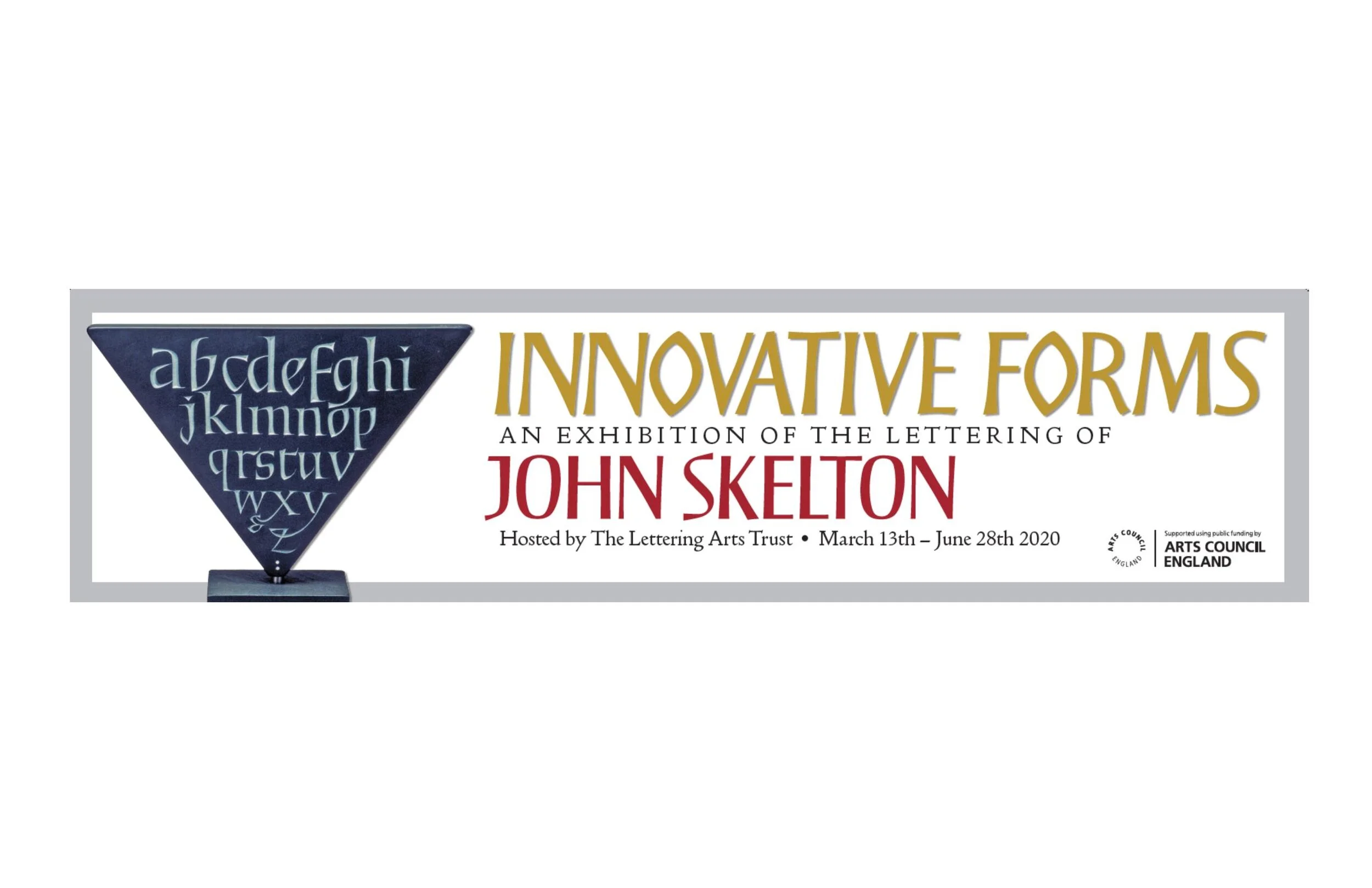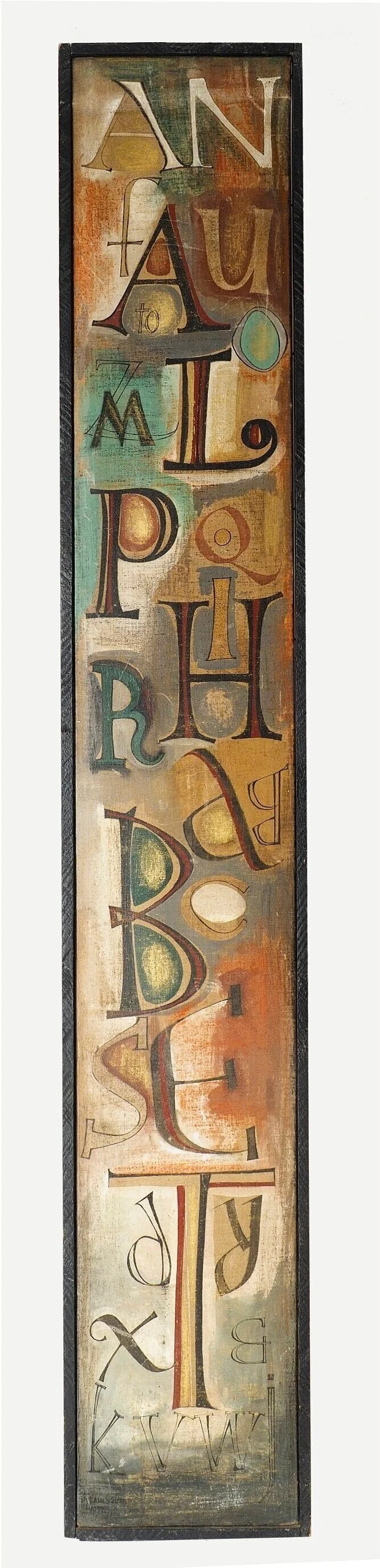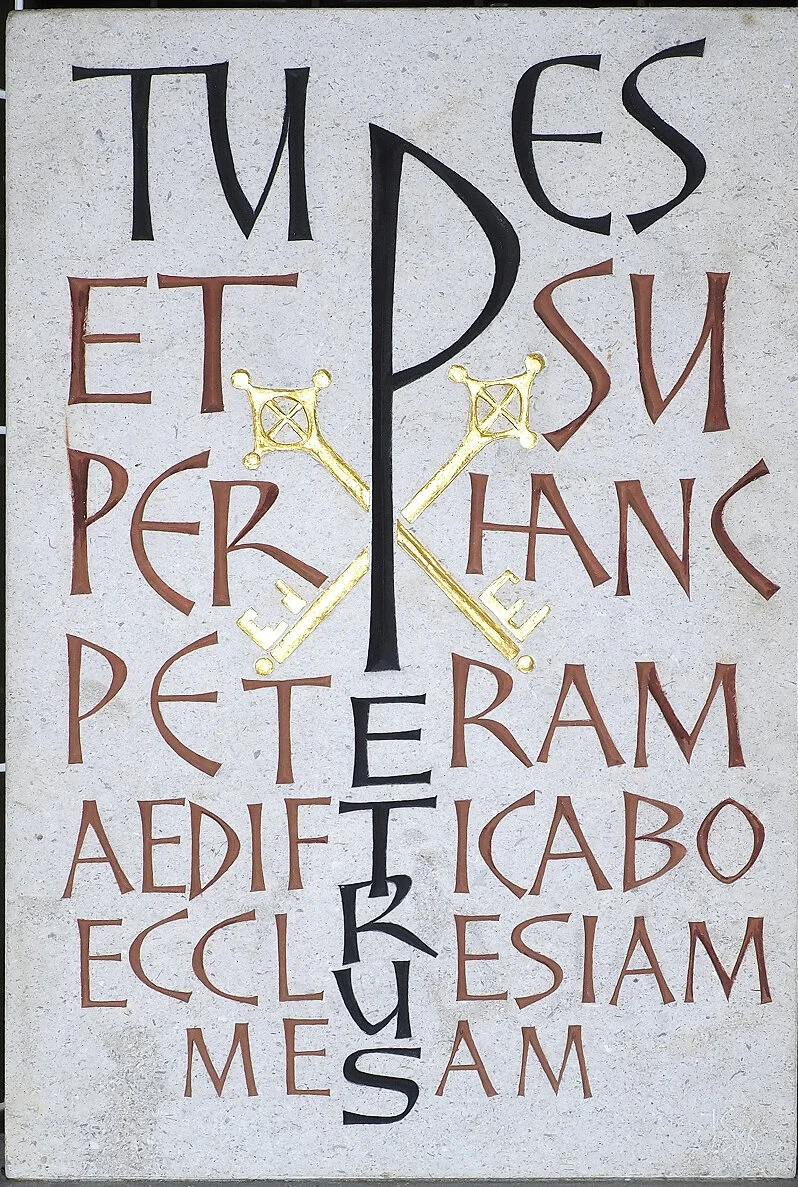
Insights into curating Innovative Forms: The Lettering of John Skelton
To mark the reopening of the Lettering Arts Trust’s gallery at Snape Maltings we invited John Skelton’s daughter, Helen Mary to offer a personal insight into curating ‘Innovative Forms – The Lettering of John Skelton’. This exceptional exhibition has been extended until 29th August 2020.
Seven years ago the Lettering Arts Centre invited the Skelton family to mount an exhibition of my father, John Skelton’s lettering. We were delighted that here was an opportunity to explore and celebrate the inventive approaches with which John undertook commissions.
Canvas Alphabet, Oil paint on canvas, 1970s
For various reasons the preparations for this exhibition were delayed, but two years ago everything looked set to go ahead. A colleague counselled me that ‘Title is key’. She was right...... this maxim enabled us to distil our choices and to ask ourselves ‘does this work display innovation? Since John was such a prolific artist, it was essential to have a simple measurement in order to be able to discard some important but perhaps more serviceable pieces. The enormous body of work John produced over a period of 55 years was achieved by his excitement of the project in hand, and by the sheer number of hours he worked, often pouring over designs late into the night and always rising early.
I had not really appreciated the extent and variety of his archive until I embarked on regular visits to The Keep, the archive facility in Brighton where his drawings, designs and rubbings reside. Over nine months I explored my father’s work and became amazed at his boundless energy. Some years he achieved up to fifty substantial pieces of work with the help of his apprentices, alongside several sculptures and letter cutting pieces which he prepared for exhibitions, not to mention the countless watercolours he had on the go. These became very popular and always sold out when exhibited.
Tue es Petrus, Hopton Limestone, 1986
John kept records of most of the commissions he was involved with, and also of speculative sculptural and lettering pieces. He recorded these in what became known as ‘the black book’. This document has been enormously helpful as a reference throughout the preparations of this exhibition, and enabled invaluable cross referencing and verifications which has assisted our tireless team of dedicated helpers. Framing costs, difficulties in conservation and the need to fit the exhibition into the space available all dictated my choices. Also some designs or drawings were sensitive in some way and therefore,
although wonderful examples of innovation, were not suitable to be chosen.
There are thirty three framed drawings or rubbings within the exhibition and five panels illustrating important projects that John and his assistants were involved with. On display also are fourteen exhibits which have been kindly loaned for this exhibition and four display cases of fascinating artefacts and letters.
The aspiration of ‘Innovative forms - the Lettering of John Skelton’ is to inspire and enthuse both students and masters of letter carving , and to draw attention to the vitality of John’s work and his important place in the twentieth century’s letter carving cannon.